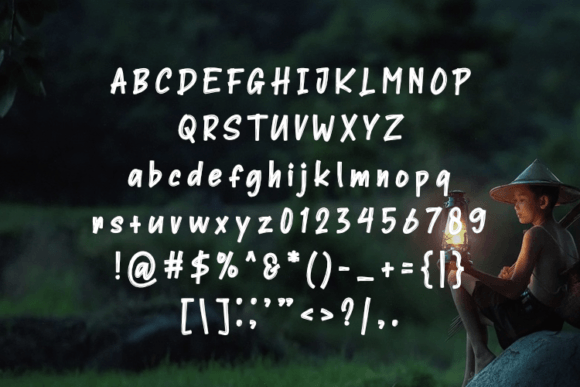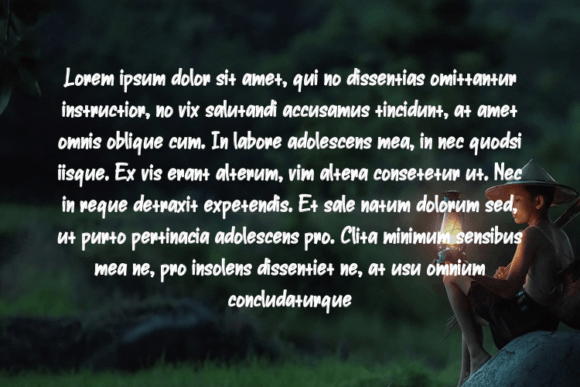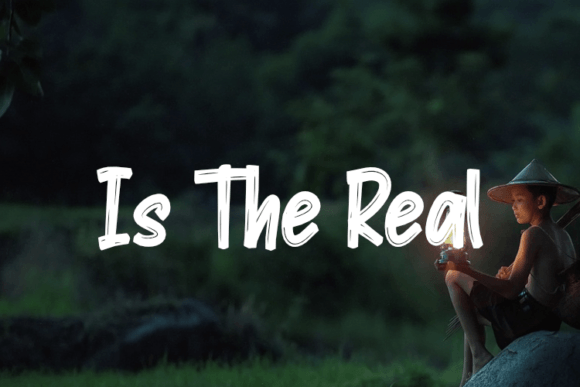
Introduction to Rocky Brush Font
Remember that moment when you’re brainstorming a new design project, and you’re stuck on the perfect font to capture the essence of your creative vision? That’s exactly when the “Rocky Brush Font” comes to the rescue. This fantastic design resource is perfect for those who crave a bold, spirited edge in their designs.
With its robust strokes and dynamic nuances, the “Rocky Brush Font” encapsulates modern design aesthetics while preserving that raw, organic feel that’s hard to find in today’s digital landscape. Whether you’re working on a t-shirt design, clothing line branding, or any other creative project, this font is sure to elevate your artistic expressions with its signature charm.
Key Features of Rocky Brush Font
- Unique Hand-Drawn Design: The Rocky Brush Font features a distinctive hand-drawn style, making it a great choice for creative projects that require a personal touch.
- Perfect for Design Projects: With its unique, hand-drawn style, the Rocky Brush Font is ideal for creative projects, such as posters, flyers, and other marketing materials.
Honest Review: Rocky Brush Font
I recently stumbled upon the Rocky Brush Font, a free download that caught my attention due to its unique, hand-drawn style. As a designer, I appreciate high-quality resources that can elevate a creative project. This font definitely delivers.
- ✨ Unique brush strokes that add a personal touch to any design
- ✨ High-quality design that looks great on both transparent and solid backgrounds
- ✨ Wide range of characters and glyphs, making it suitable for various creative projects
However, I did encounter a few limitations while using this font.
- ⚠️ Limited font sizes available, which may require some scaling adjustments
Overall, I’m impressed with the Rocky Brush Font and its potential to add a creative touch to various design projects. While it may have some limitations, its unique style and high-quality design make it a valuable addition to any designer’s resource library.
How to Use Rocky Brush Font
The Rocky Brush Font is a unique, high-quality design resource perfect for creative projects. Its distinctive style makes it an ideal choice for adding a personal touch to your designs.
Getting the Most Out of Rocky Brush Font
To get the most out of the Rocky Brush Font, experiment with different font sizes, colors, and combinations to create a unique look that suits your design style.
The Rocky Brush Font is ideal for various design projects, including:
- Invitations and event graphics
- Social media graphics and advertisements
Alternatives to Rocky Brush Font
2. Lobster Font
Lobster Font is a modern script font with a unique, cursive design. It’s perfect for creative projects that require a touch of whimsy and playfulness, such as blog titles, social media headers, and advertisements.